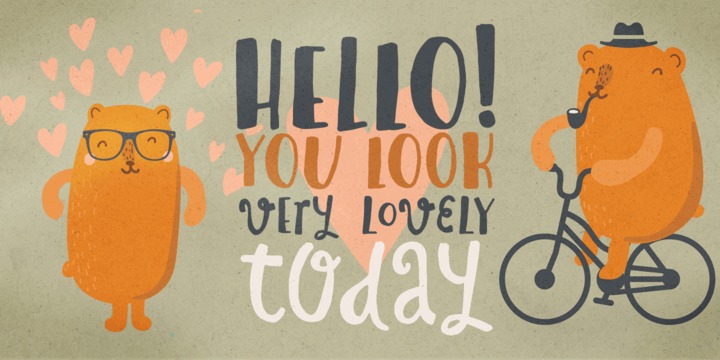
An expressive disconnected script and a stylish display face that play together devilish well. Add some handsome extras to the mix and voilà Blueshift, a hand-drawn family with a remarkable contemporary accent. Splendid designs are guaranteed for all! (And tonight Mr. Kite is topping the bill)